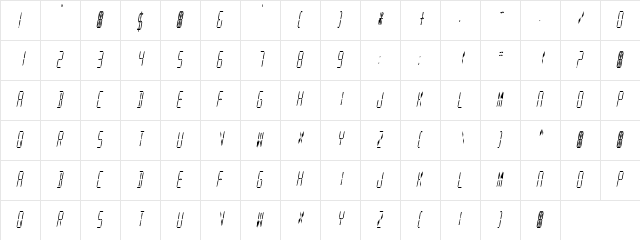
Digital Readout Condensed Regular
Design Context for Digital Readout Condensed Typeface
Digital Readout Condensed channels digital-age aesthetics through its sharp, structured letterforms — ideal for brands that want to signal innovation. Its narrow stance lets it pack a punch even in space-constrained designs.